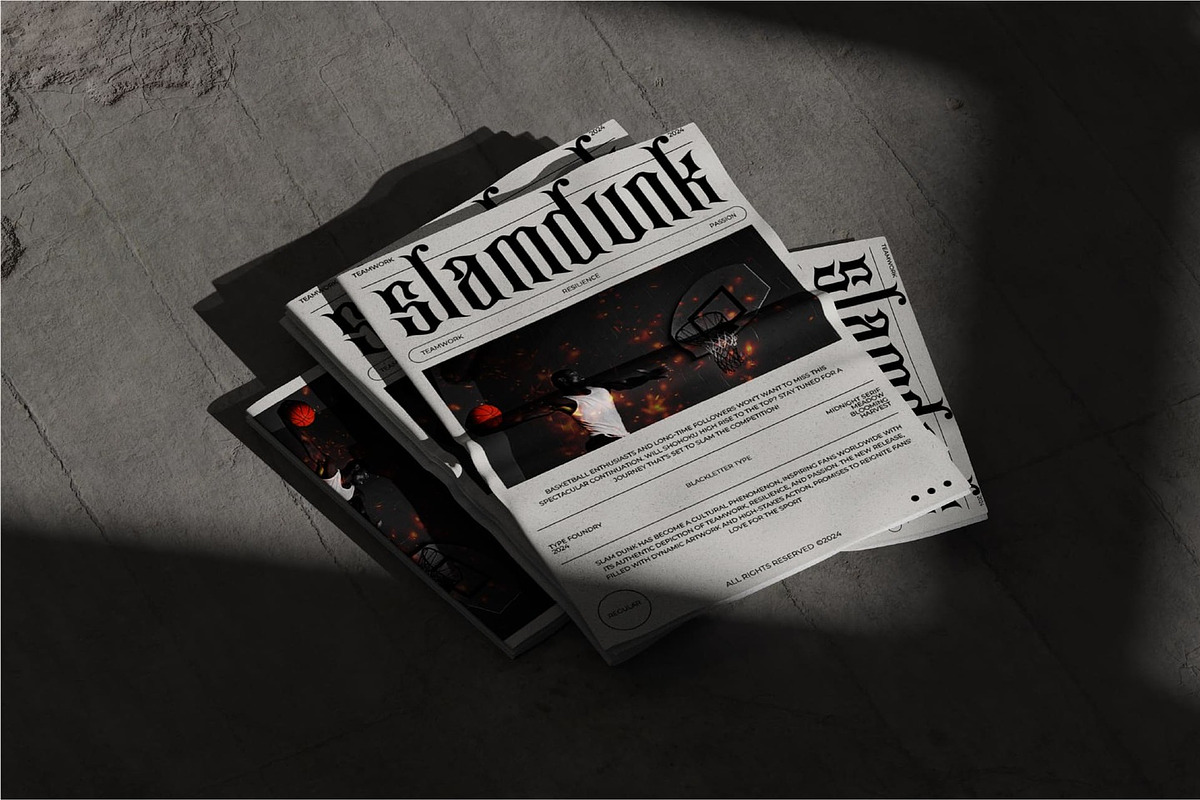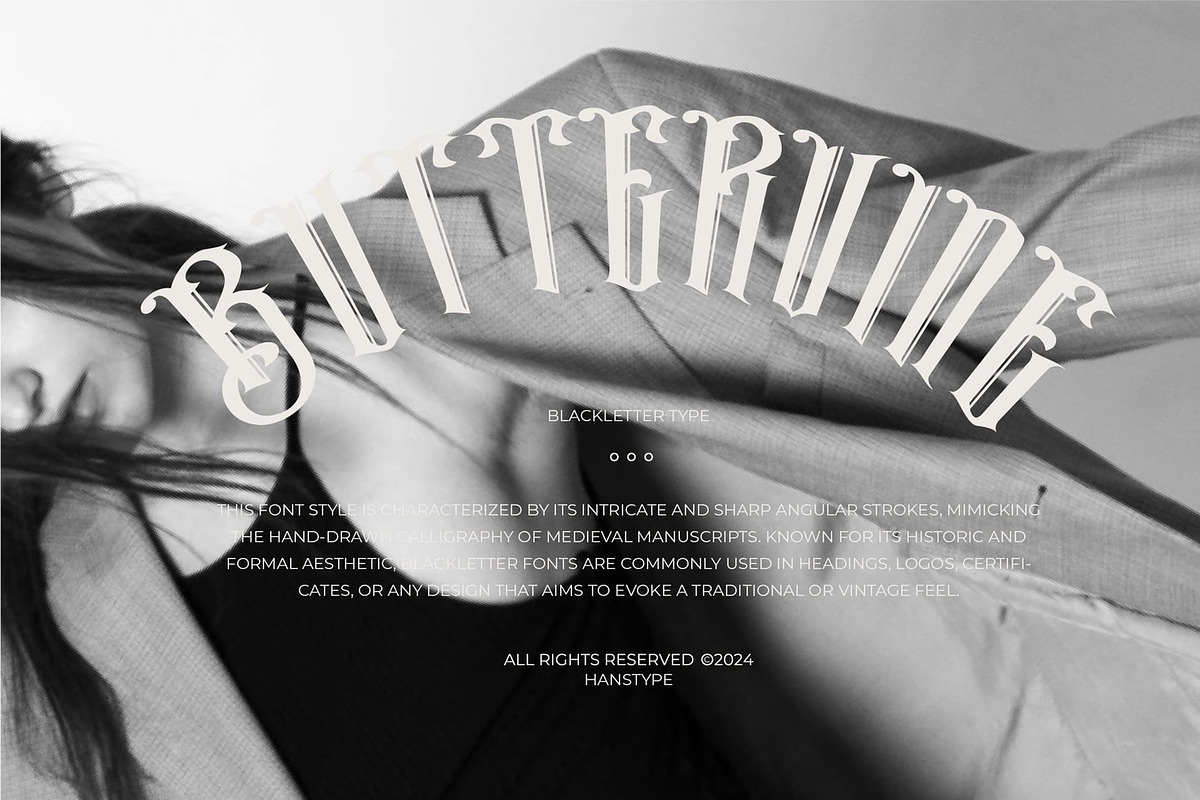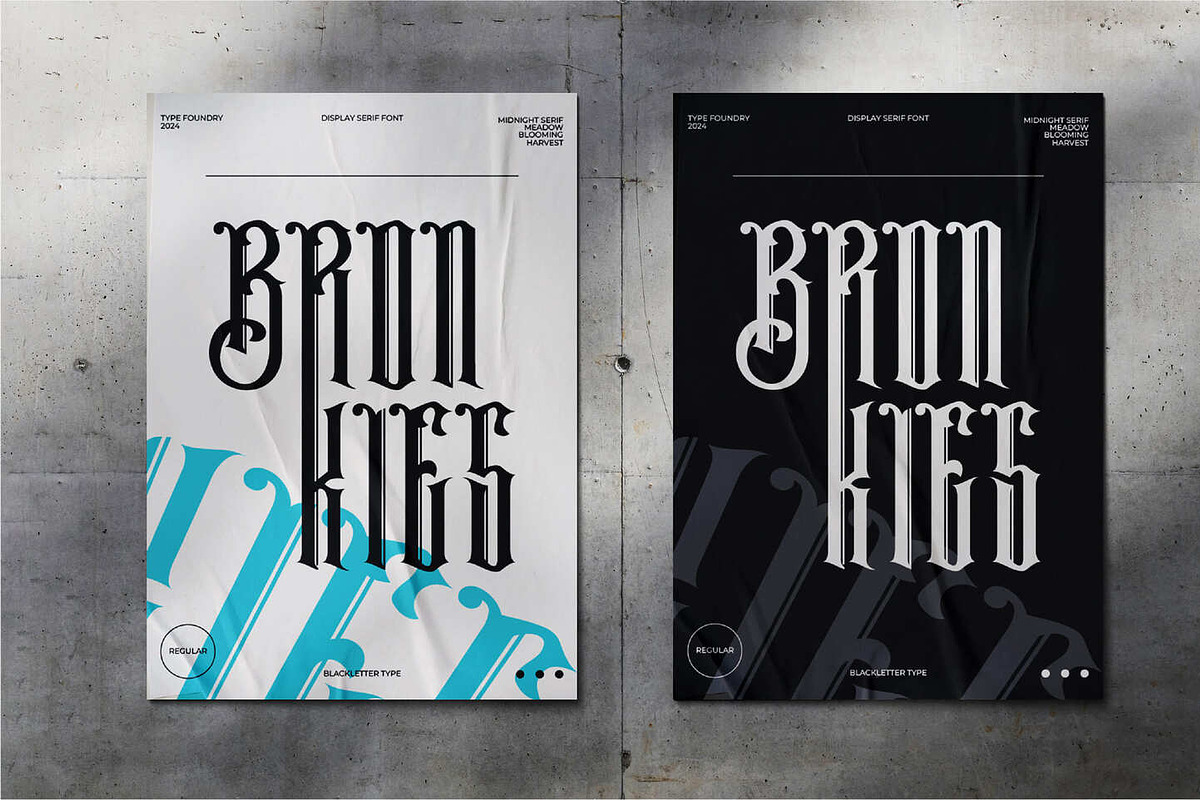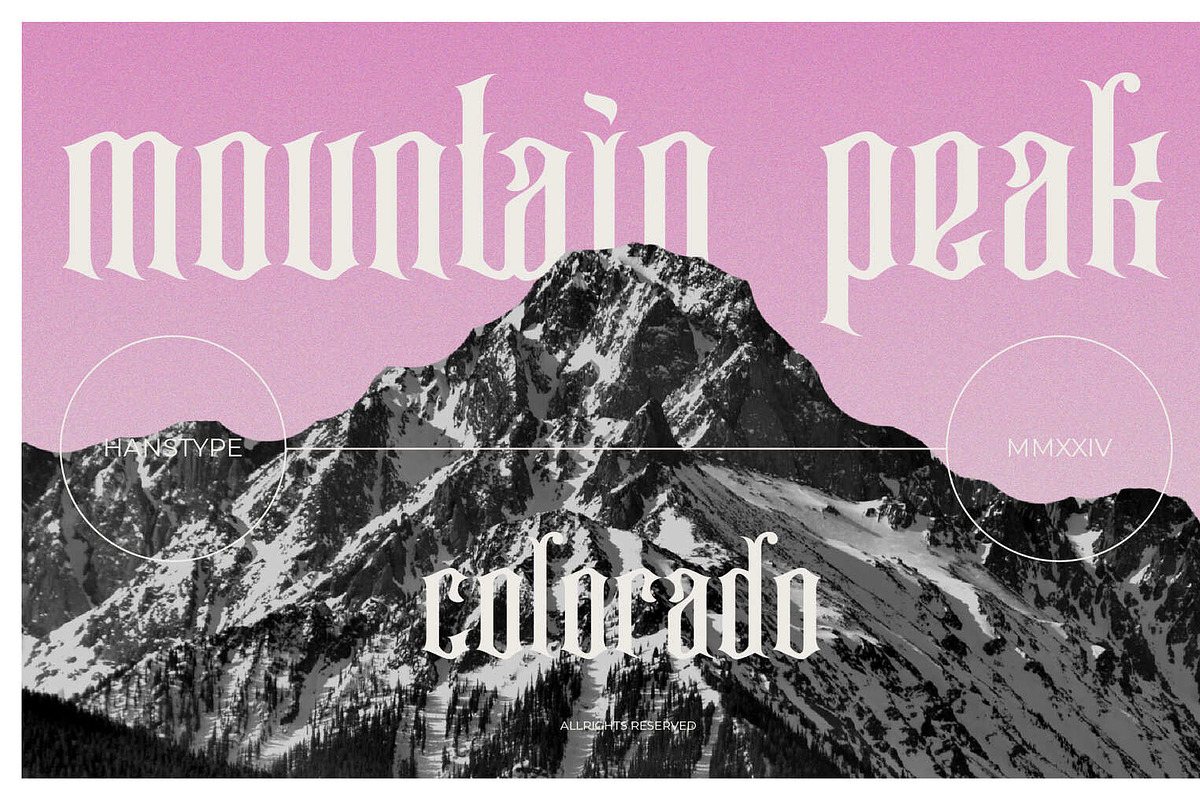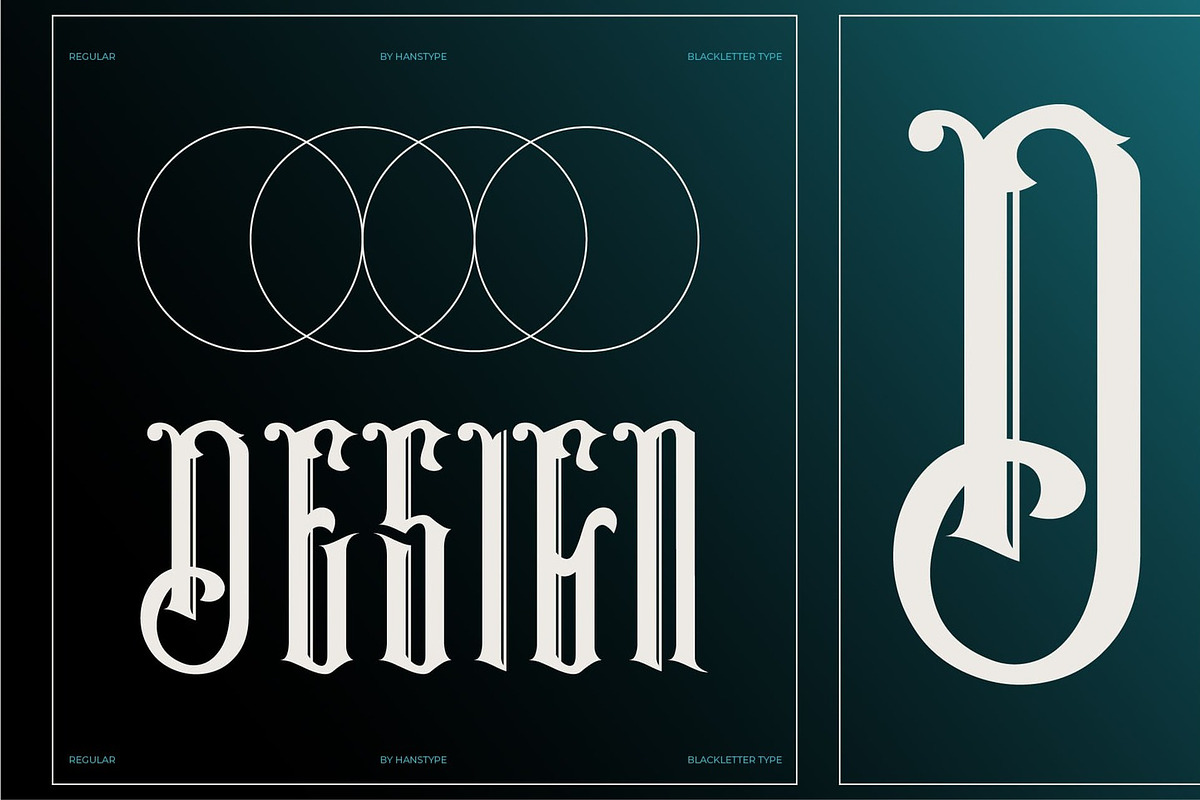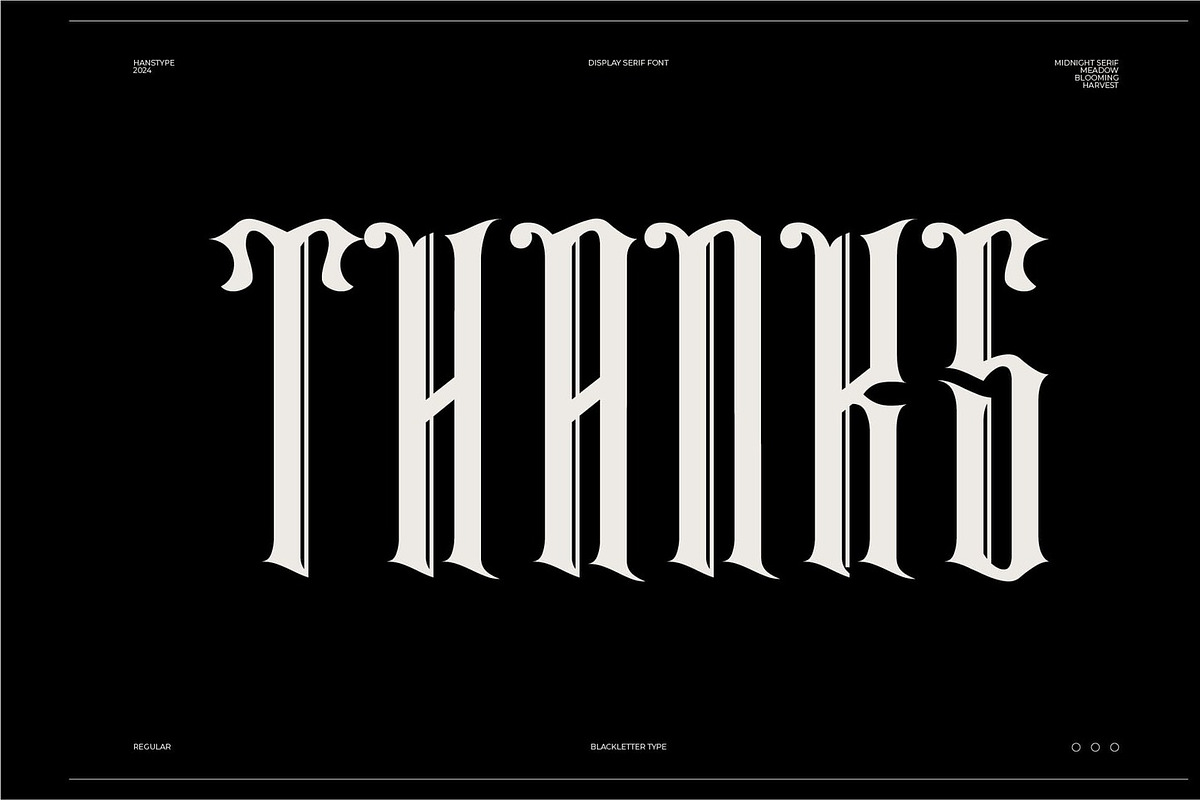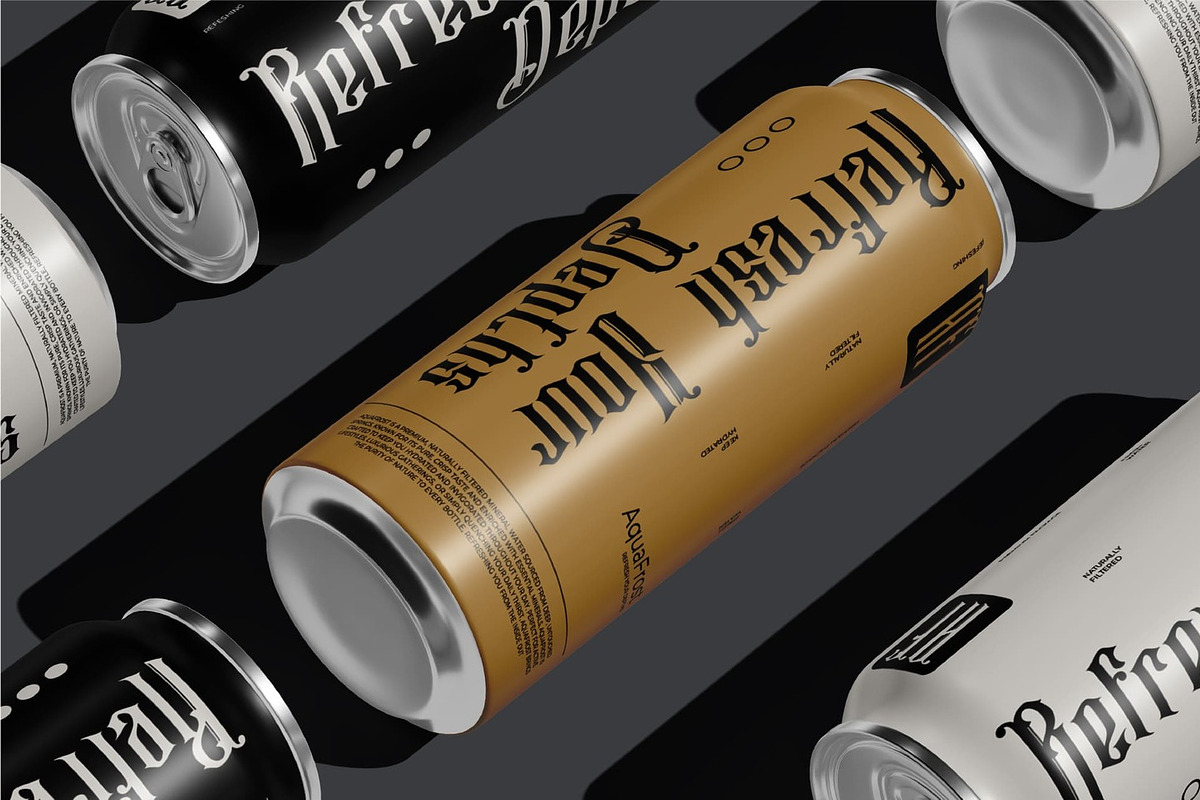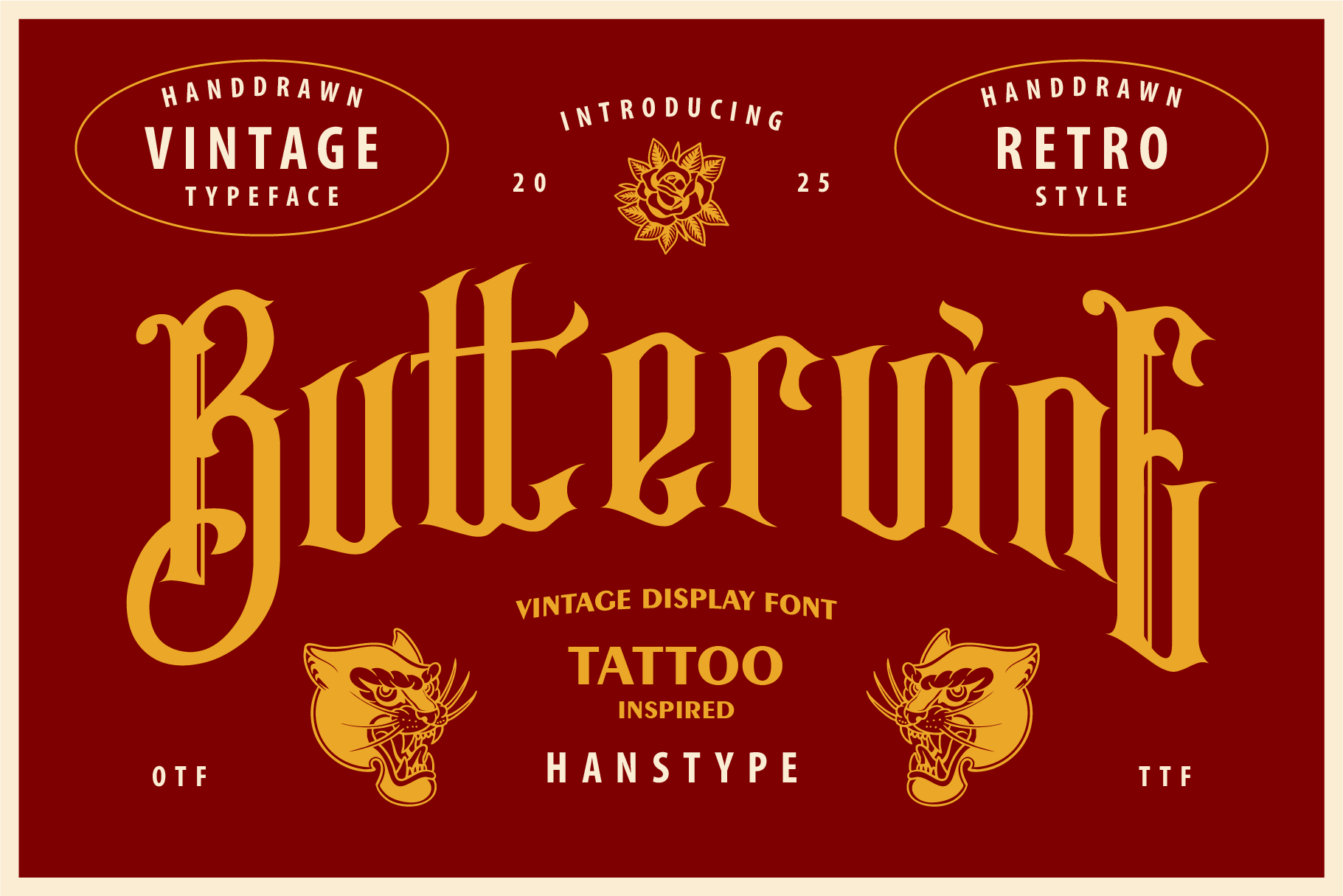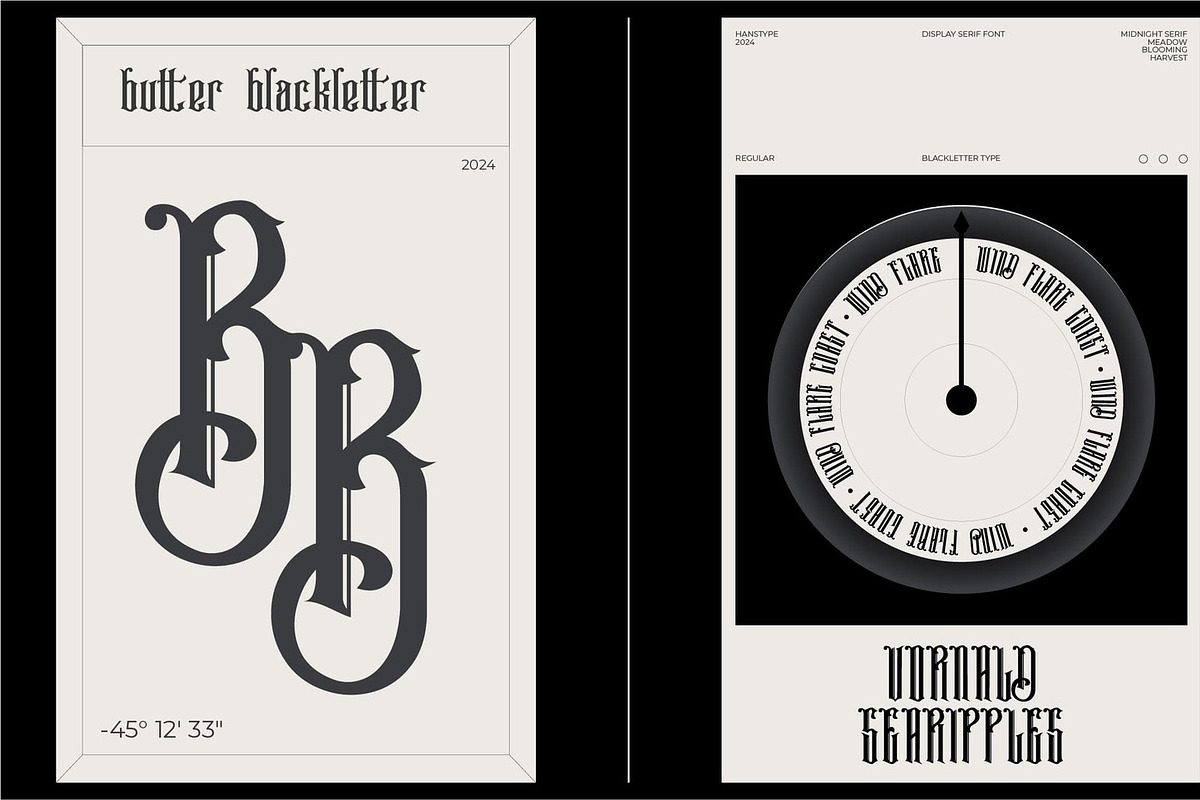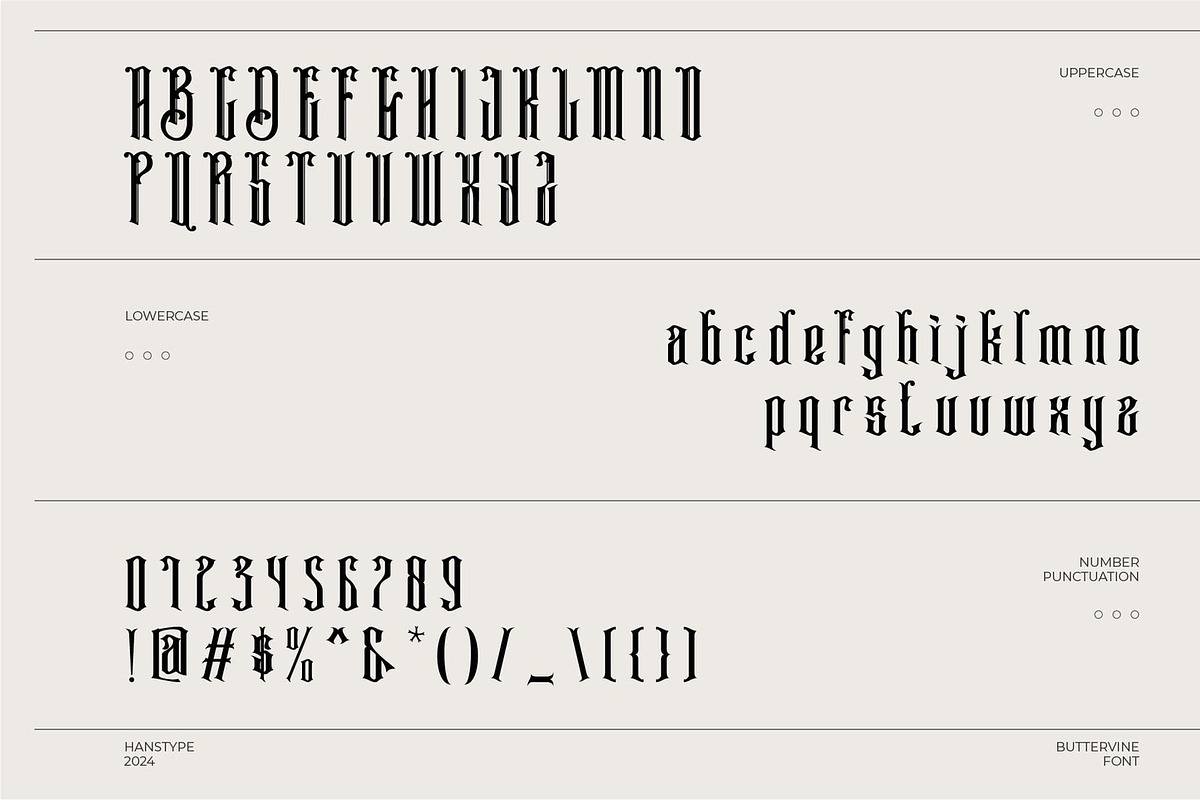
Buttervine - Vintage Display Font
Buttervine this font style is characterized by its intricate and sharp angular strokes, mimicking the hand-drawn calligraphy of medieval manuscripts. known for its historic and formal aesthetic, blackletter fonts are commonly used in headings, logos, certificates, or any design that aims to evoke a traditional or vintage feel.